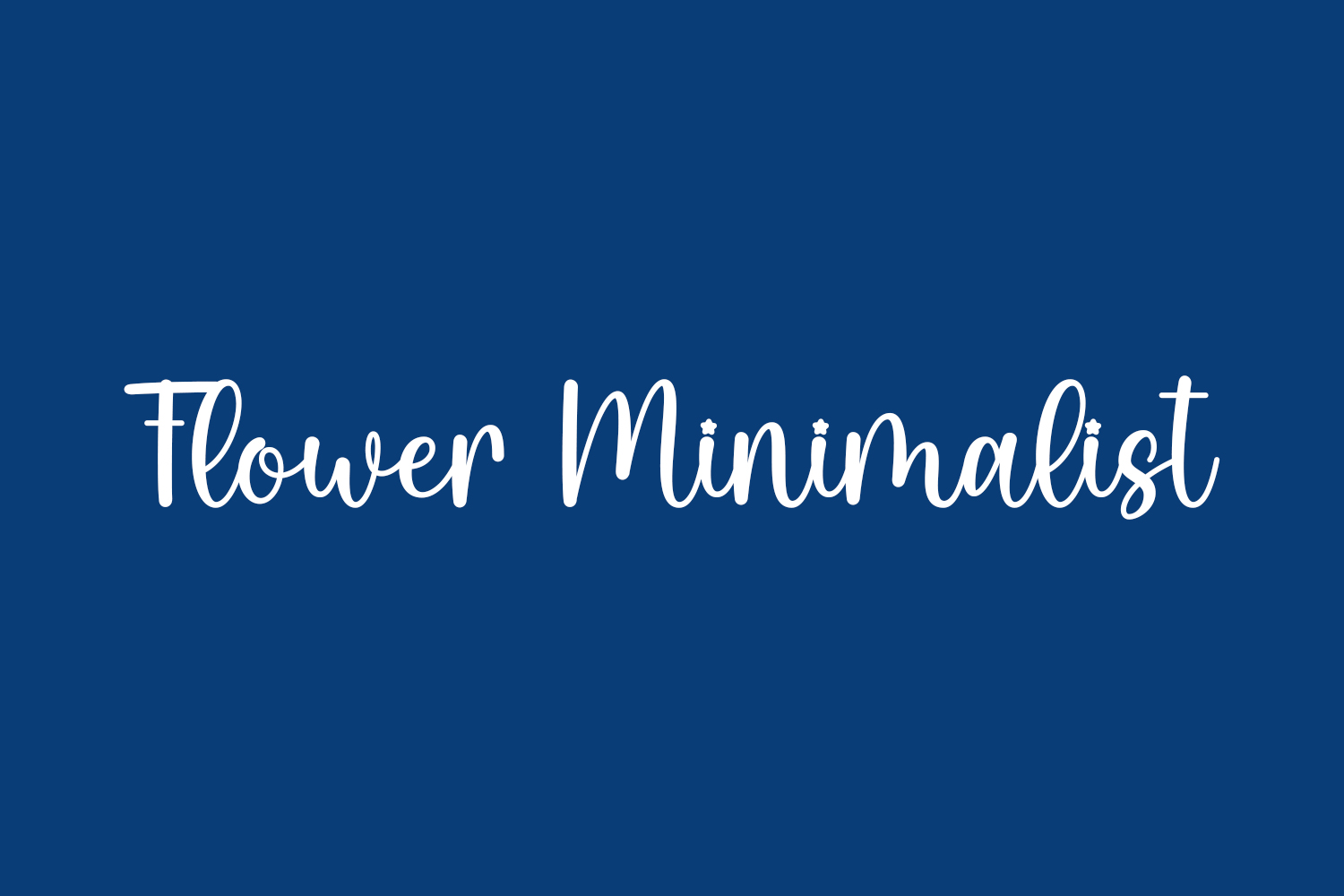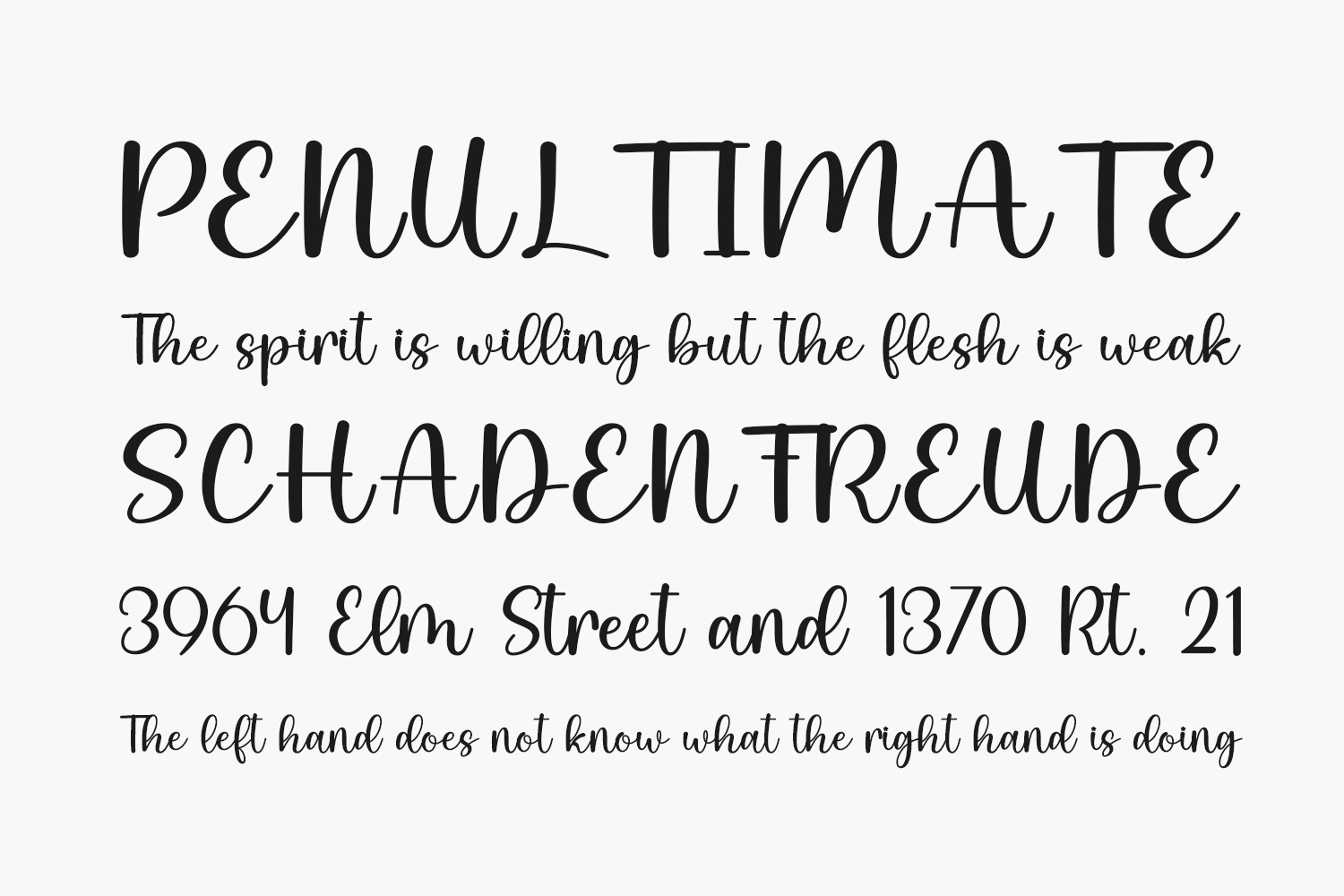
Flower Minimalist Free Font exudes both charm and elegance, making it a captivating choice. This font enhances the aesthetic of various designs, including wedding invitations, thank you cards, quotes, greeting cards, logos, business cards, and any project that benefits from a graceful handwritten touch. Elevate your designs with the enchanting appeal of Flower Minimalist for a touch of timeless sophistication. Flower Minimalist Free Font was designed by Wahyu Studio and is free for personal use only. Please purchase the full version for commercial use.